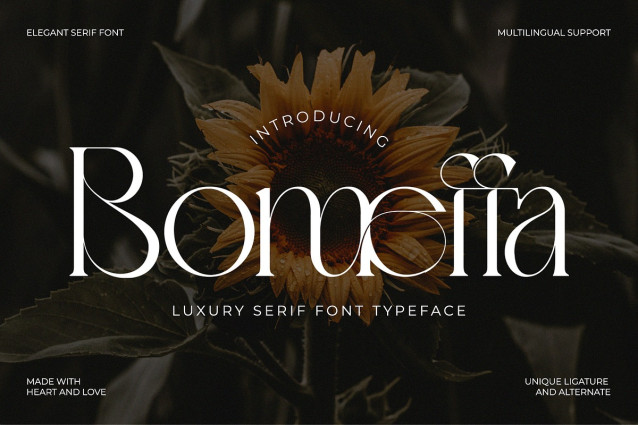
Bomeffa Font
Bomeffa Font is an elegant luxury serif font designed to exude sophistication and class. Perfect for high-end branding, fashion, and premium products, its refined letterforms add a touch of exclusivity and timeless appeal to any design.